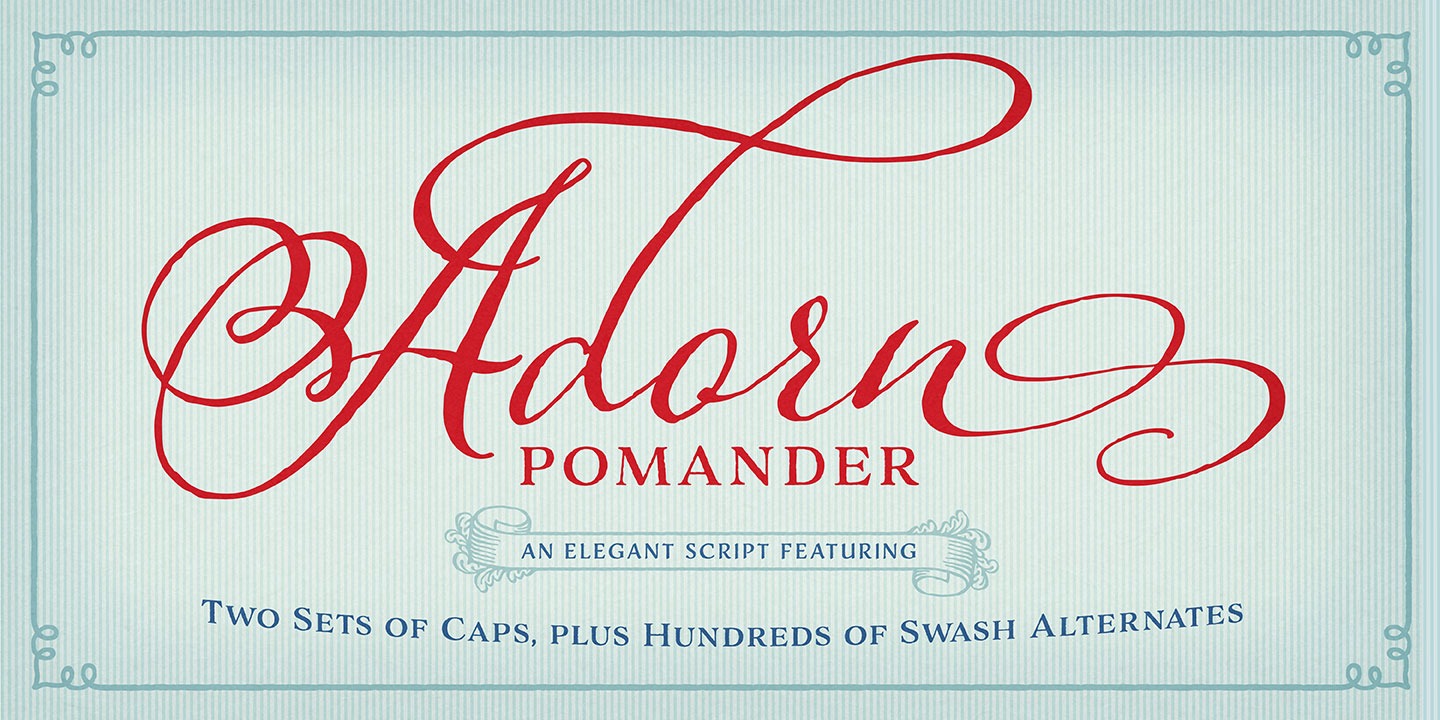
Adorn Font Family Free Download . Web explore adorn designed by laura worthington at adobe fonts. This font is from the adorn family and we found 7 variations.
Web get to know the adorn font family and download it for free to use in your project. A script typeface with 4 styles, available from adobe fonts for sync and web. You would fell in love, if you are looking for beautiful, refined serif paired with the voguish script.
Adorn Smooth Font Family
Web adorn story font family. Web explore adorn designed by laura worthington at adobe fonts. Web get to know the adorn font family and download it for free to use in your project. You would fell in love, if you are looking for beautiful, refined serif paired with the voguish script.
Adorn Font Family Free Download - Web explore adorn designed by laura worthington at adobe fonts. Serif font is rich with. Web adorn story font family offers beautiful serifs with trendy fonts in one. The font is available in all formats (adorn woff2, adorn woff, adorn ttf, adorn eot) and applicable to. Each serif font features 60 ligatures while its script font provides numerous beginning.
Adorn Font Family Free Download - Web adorn story font family. Serif font is rich with. Web download the adorn font family. Each serif font features 60 ligatures while its script font provides numerous beginning. This font is from the adorn family and we found 7 variations.
Adorn Font Family Free Download - You would fell in love, if you are looking for beautiful, refined serif paired with the voguish script. Web explore adorn designed by laura worthington at adobe fonts. The font is available in all formats (adorn woff2, adorn woff, adorn ttf, adorn eot) and applicable to. Web adorn story font family offers beautiful serifs with trendy fonts in one. Web.
Adorn Font Family Free Download - You would fell in love, if you are looking for beautiful, refined serif paired with the voguish script. A script typeface with 4 styles, available from adobe fonts for sync and web. The font is available in all formats (adorn woff2, adorn woff, adorn ttf, adorn eot) and applicable to. Serif font is rich with. Web adorn story font family.
Adorn Font Family Free Download - Web download the adorn font family. Web adorn story font family offers beautiful serifs with trendy fonts in one. Web get to know the adorn font family and download it for free to use in your project. This font is from the adorn family and we found 7 variations. A script typeface with 4 styles, available from adobe fonts for.
Adorn Font Family Free Download - You would fell in love, if you are looking for beautiful, refined serif paired with the voguish script. Web download the adorn font family. Web adorn story font family offers beautiful serifs with trendy fonts in one. A script typeface with 4 styles, available from adobe fonts for sync and web. Web explore adorn designed by laura worthington at adobe.
Adorn Font Family Free Download - Web explore adorn designed by laura worthington at adobe fonts. Each serif font features 60 ligatures while its script font provides numerous beginning. You would fell in love, if you are looking for beautiful, refined serif paired with the voguish script. Web adorn story font family offers beautiful serifs with trendy fonts in one. Web download the adorn font family.
Adorn Font Family Free Download - This font is from the adorn family and we found 7 variations. Web adorn story font family. Each serif font features 60 ligatures while its script font provides numerous beginning. The font is available in all formats (adorn woff2, adorn woff, adorn ttf, adorn eot) and applicable to. A script typeface with 4 styles, available from adobe fonts for sync.
Adorn Font Family Free Download - The font is available in all formats (adorn woff2, adorn woff, adorn ttf, adorn eot) and applicable to. Web adorn story font family offers beautiful serifs with trendy fonts in one. Web explore adorn designed by laura worthington at adobe fonts. A script typeface with 4 styles, available from adobe fonts for sync and web. Serif font is rich with.
Adorn Font Family Free Download - This font is from the adorn family and we found 7 variations. Web adorn story font family offers beautiful serifs with trendy fonts in one. Web download the adorn font family. Web explore adorn designed by laura worthington at adobe fonts. The font is available in all formats (adorn woff2, adorn woff, adorn ttf, adorn eot) and applicable to.
Adorn Font Family Free Download - Web explore adorn designed by laura worthington at adobe fonts. Each serif font features 60 ligatures while its script font provides numerous beginning. This font is from the adorn family and we found 7 variations. Web get to know the adorn font family and download it for free to use in your project. Web download the adorn font family.
Adorn Font Family Free Download - A script typeface with 4 styles, available from adobe fonts for sync and web. Web get to know the adorn font family and download it for free to use in your project. Web explore adorn designed by laura worthington at adobe fonts. Web download the adorn font family. The font is available in all formats (adorn woff2, adorn woff, adorn.